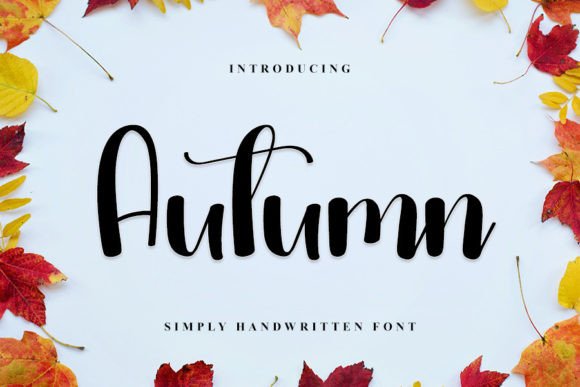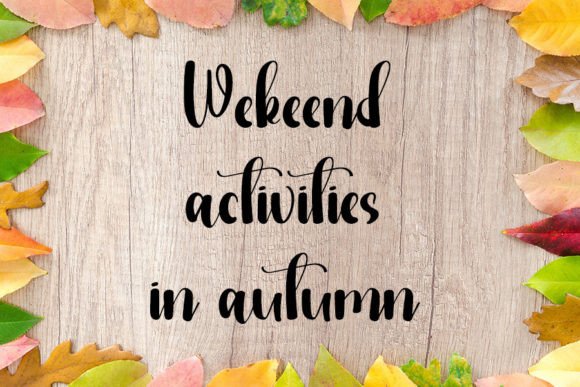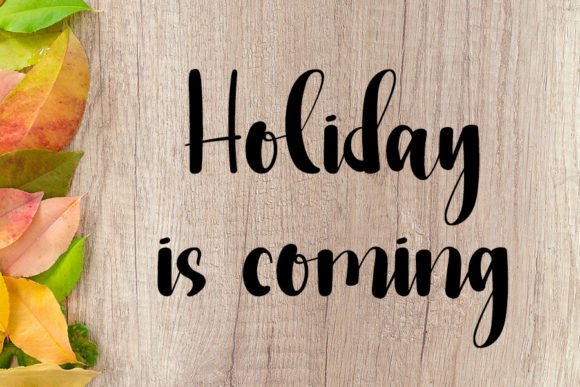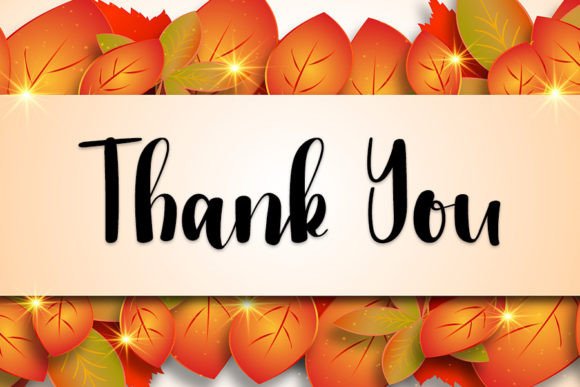
The Autumn Font Download is a neat and elegant handwritten script created to bring warmth and timeless charm to your projects. With its graceful handwritten strokes and carefully balanced form, this typeface fits both personal and professional designs. Whether you are crafting invitations, logos, or digital graphics, Autumn adds sophistication and style to every creation.
A Script with Natural Elegance
The Autumn script font blends the rhythm of classic handwriting with a polished modern structure. As a result, it feels graceful, versatile, and timeless. Furthermore, it transitions smoothly between delicate stationery and bold branding, which makes it a dependable tool for all designers.
Handwritten fonts always add intimacy and personality. The Autumn Font is ideal for wedding invitations, birthday cards, thank you notes, and holiday greetings. Because of its handwritten flow, each card feels authentic and polished. In addition, it ensures that your stationery leaves a memorable impact.
Branding and Logo Design with Autumn Font
Typography communicates the essence of a brand. The Autumn handwritten font is excellent for logos, product packaging, and business identity designs. Its handwritten sophistication allows brands to appear elegant yet approachable. Therefore, it works especially well for fashion, lifestyle, and creative businesses.
Posters, Titles, and Editorial Layouts
The Autumn Font Download also shines in posters, magazines, banners, and book covers. It retains clarity across different sizes while adding handwritten beauty. Consequently, it is a reliable option for designers who value elegance and readability together.
In today’s digital world, fonts need to stand out across platforms. The Autumn typeface integrates seamlessly into Instagram posts, Pinterest boards, YouTube thumbnails, and blogs. Because of its timeless handwritten form, it ensures digital projects look professional and stylish.
Why Designers Choose Autumn Typeface
Designers enjoy fonts that combine beauty with practicality. The Autumn handwritten script keeps its elegant character while remaining legible and user-friendly. This makes it suitable for professionals and hobbyists alike. Moreover, its timeless style guarantees that it remains trendy in future projects.